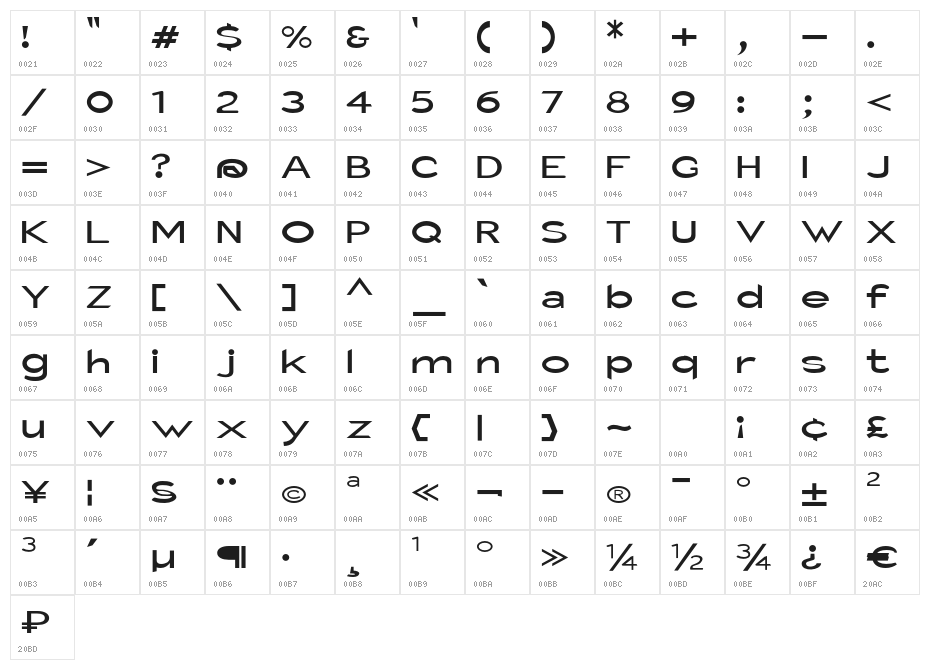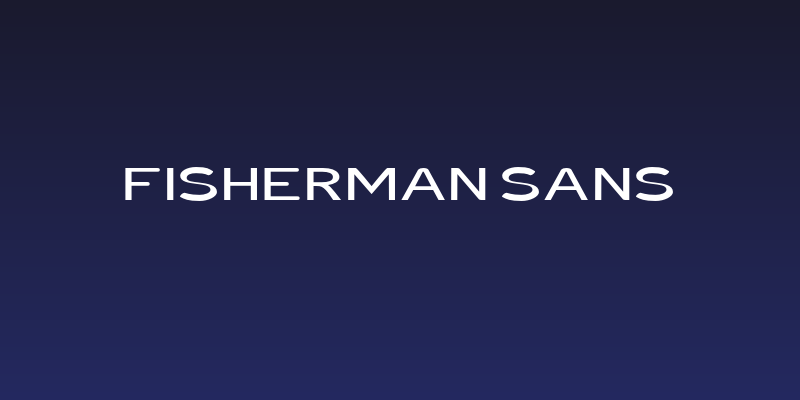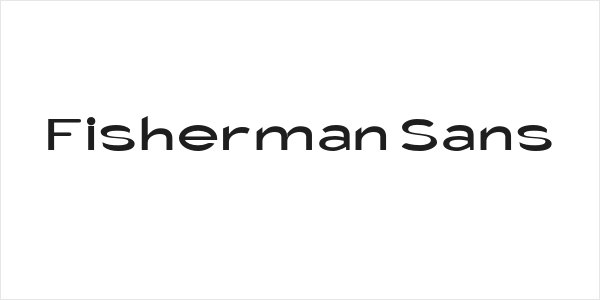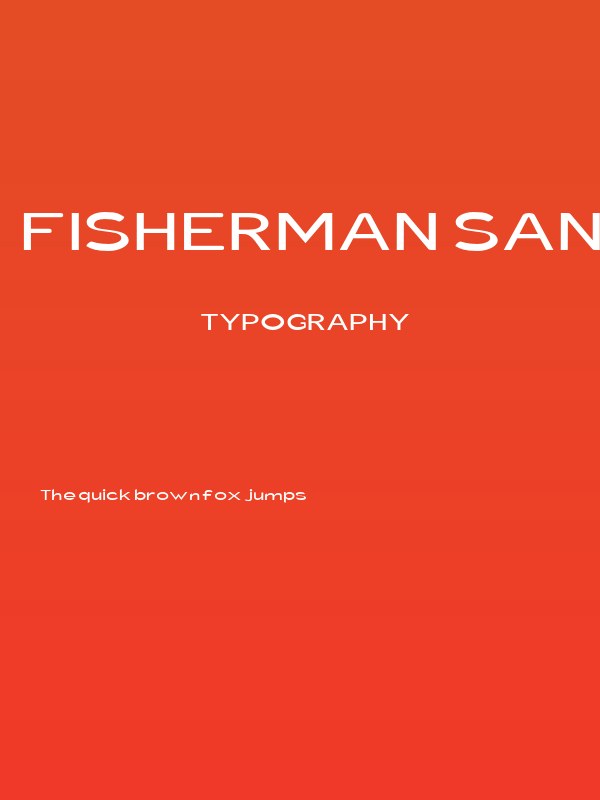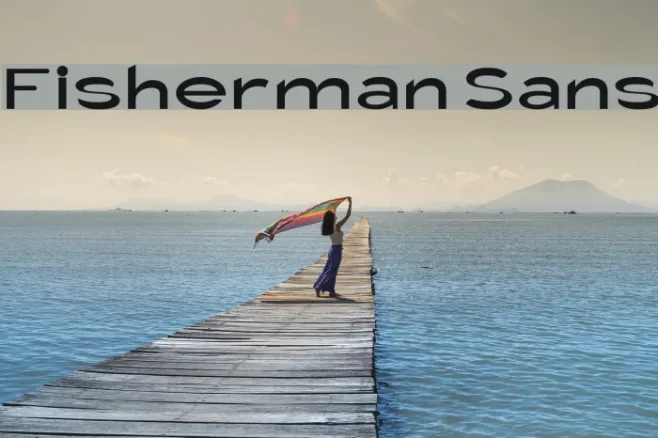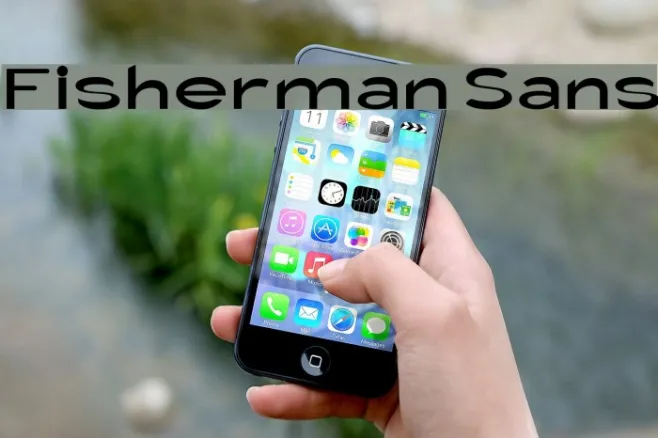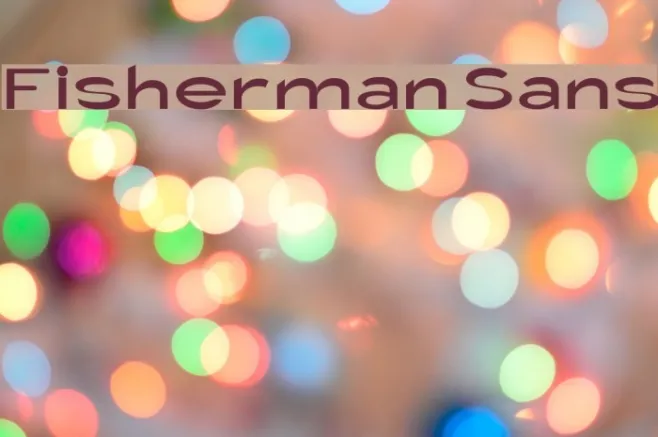
Fisherman Sans Font
Fisherman Sans Description
This font features a clean, modern sans-serif style with smooth, rounded edges and a geometric structure. The uppercase letters are bold and uniform, providing a strong presence, while the lowercase letters maintain a consistent flow with slightly rounded terminals. The numerals are clear and easily distinguishable, matching the overall geometric aesthetic. Special characters are well-integrated, maintaining the font's cohesive look. The design is versatile, making it suitable for a variety of applications where clarity and modernity are desired.
| Proposed Projects | Ideal for branding, digital interfaces, advertising, and editorial design where a contemporary and clean appearance is needed. |